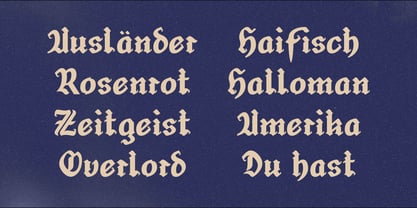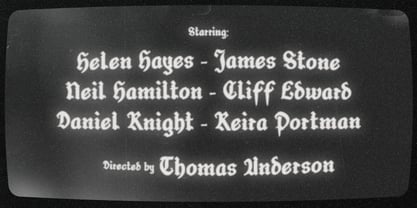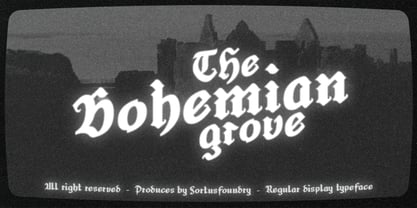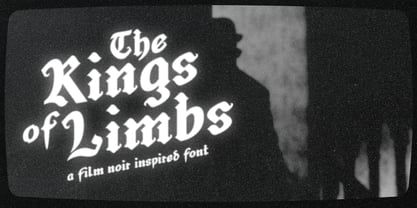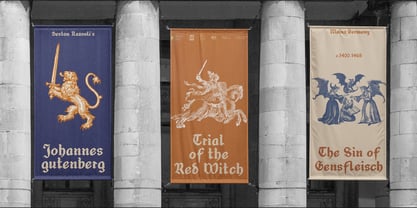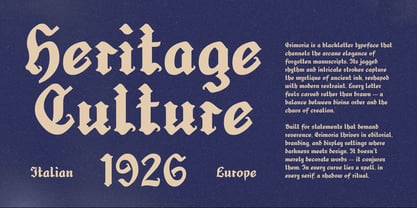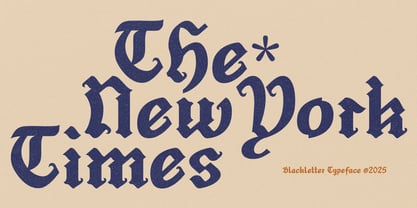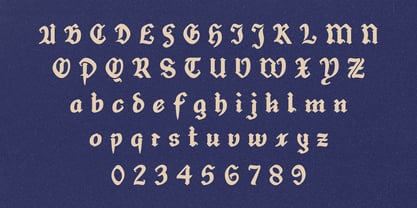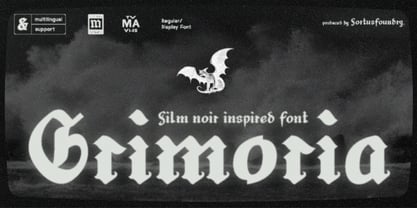
Grimoria
by Fortus Foundry
The Grimoria Font Family was designed by Zulhilmi Hanip and published by Fortus Foundry. Grimoria contains 1 styles. More about this family
Grimoria is a captivating blackletter typeface that embodies the mystique of ancient manuscripts and forgotten ink. Its jagged rhythm and sculpted forms evoke the essence of sacred texts, with letters that appear carved rather than merely drawn. This typeface masterfully balances divine order with creative chaos, reshaping medieval intensity through a modern lens. Each curve carries significance, and every serif whispers of ritual. Grimoria excels in editorial, branding, and display applications where drama and reverence converge—ideal for album covers, posters, book titles, or any project that aims to evoke emotion rather than just convey information. While deeply rooted in European blackletter tradition, Grimoria is refined for today’s digital landscape, ensuring clarity without sacrificing its dark allure. It transcends mere decoration, conjuring words with every line and infusing each word with a whisper of history reborn. Perfect for projects that seek to captivate and inspire, Grimoria is a typeface that invites exploration and engagement.